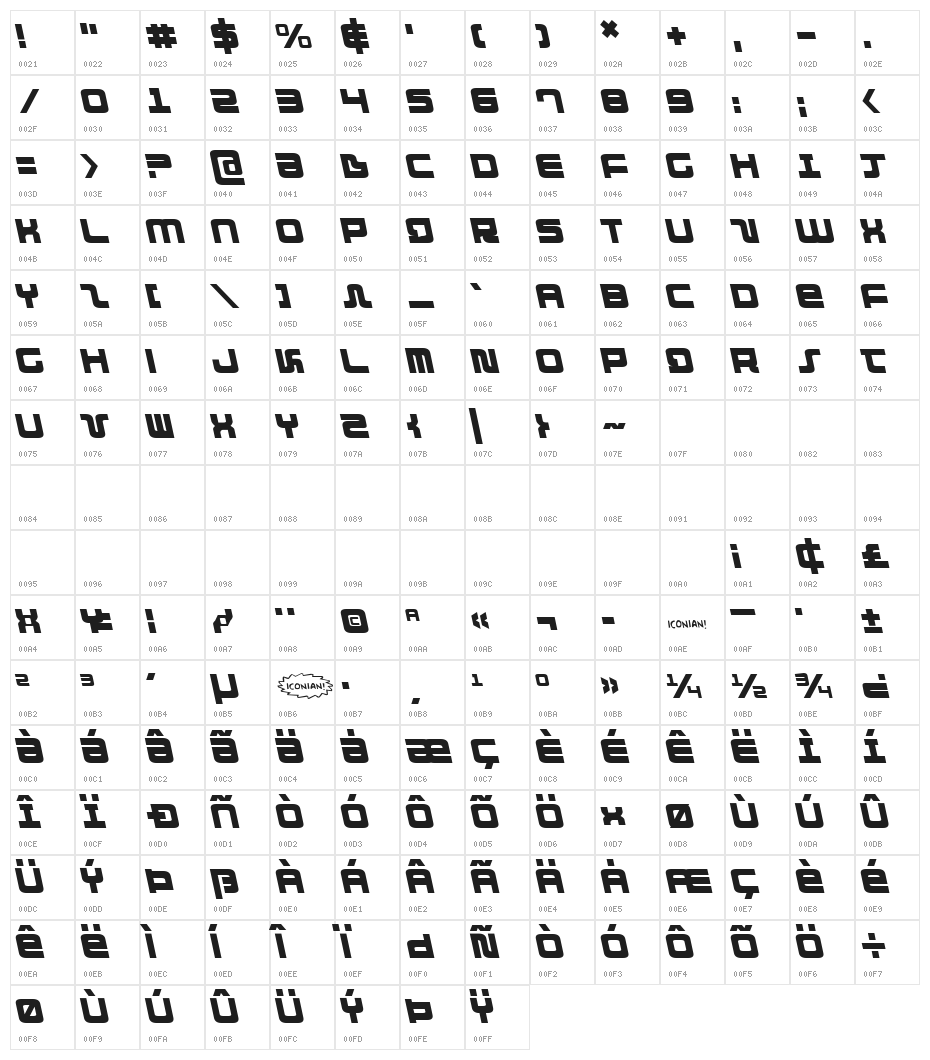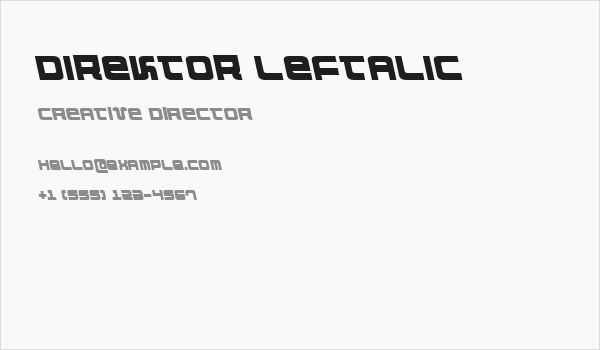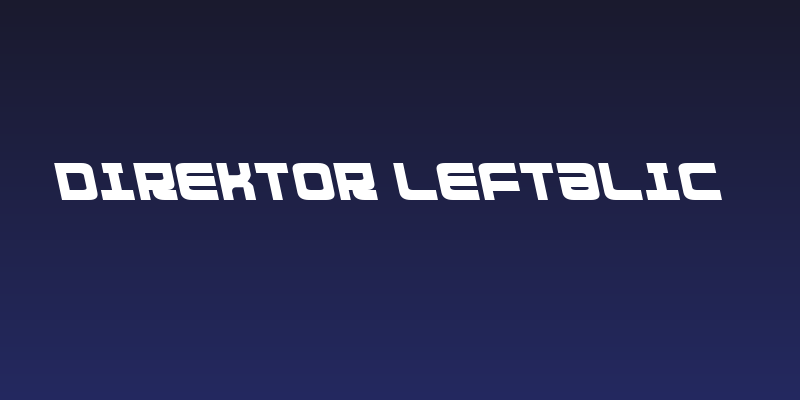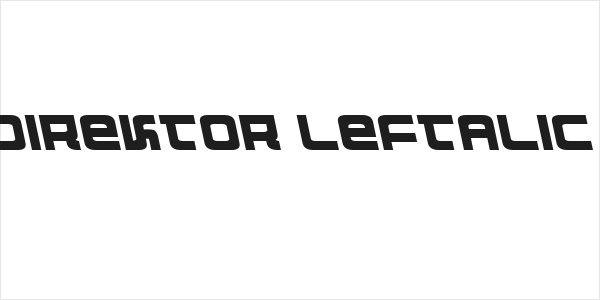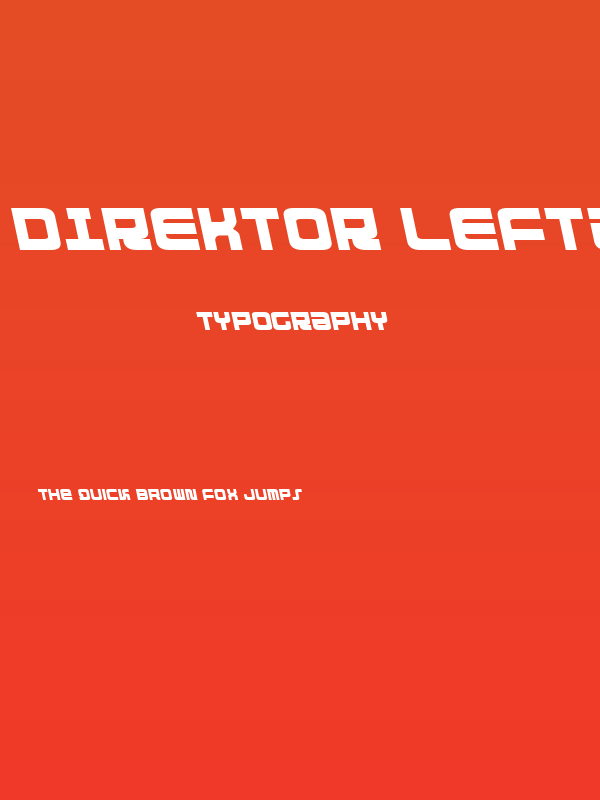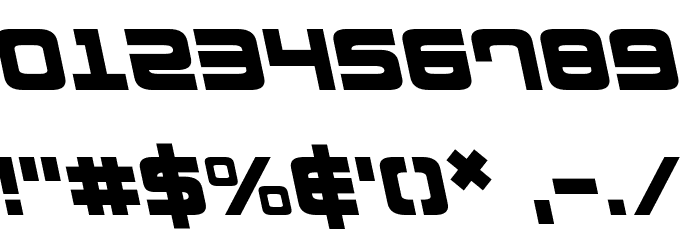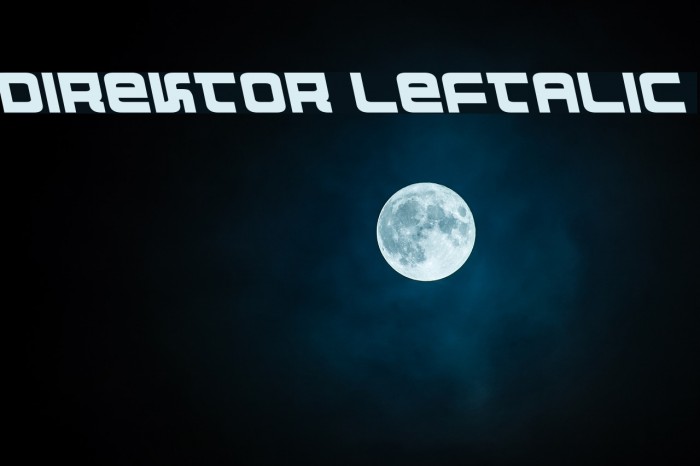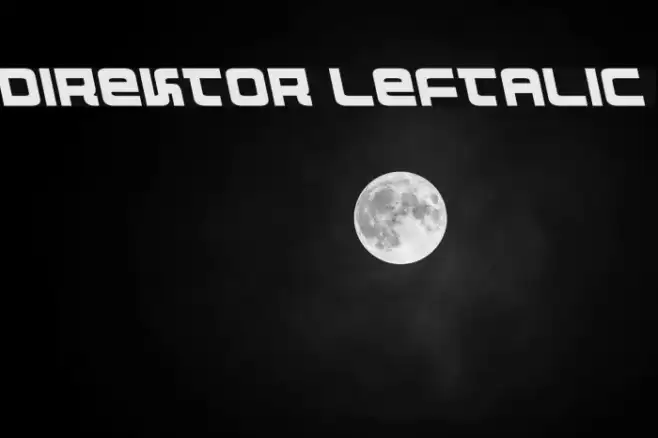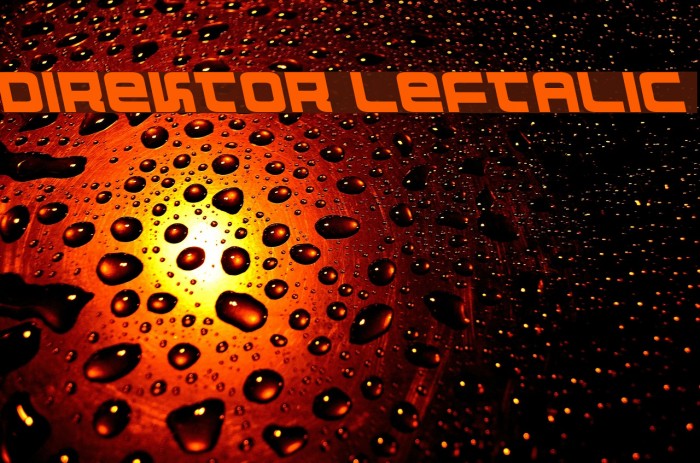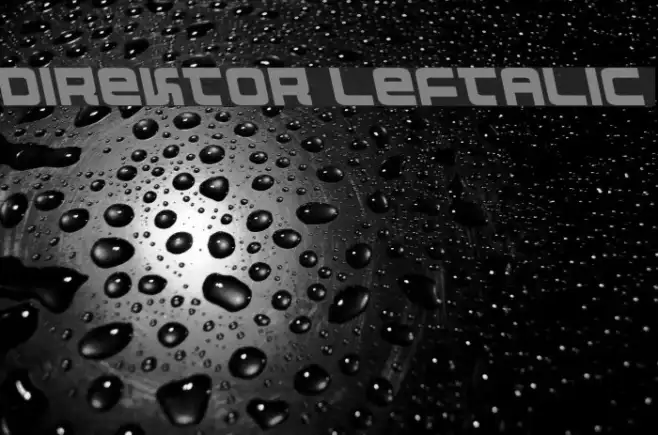
Direktor Leftalic Font
Direktor Leftalic Description
This font features a bold, futuristic design with a distinct geometric structure. The characters are slightly slanted, giving a dynamic and forward-moving appearance. The strokes are thick and consistent, providing a strong visual impact. The font has a modern and industrial feel, with unique angular cuts and rounded edges that add a touch of softness to the otherwise robust design. The uppercase and lowercase letters maintain a uniform style, ensuring readability while adding a unique flair. The numbers and special characters are designed to match the overall aesthetic, making this font versatile for various applications.
| Use Case | Logos, Headlines, Posters |
| Proposed Projects | Ideal for technology branding, sci-fi movie posters, video game titles, and modern logo designs. |